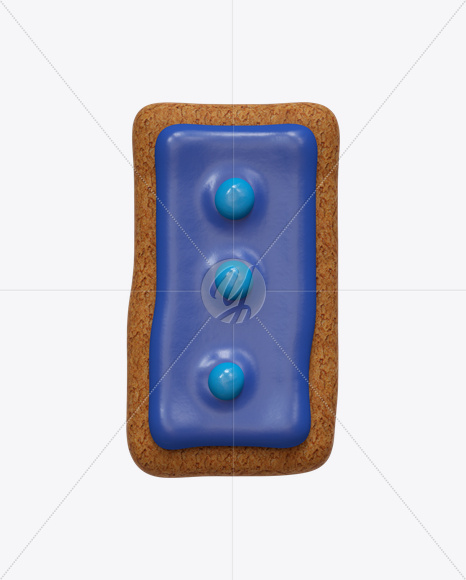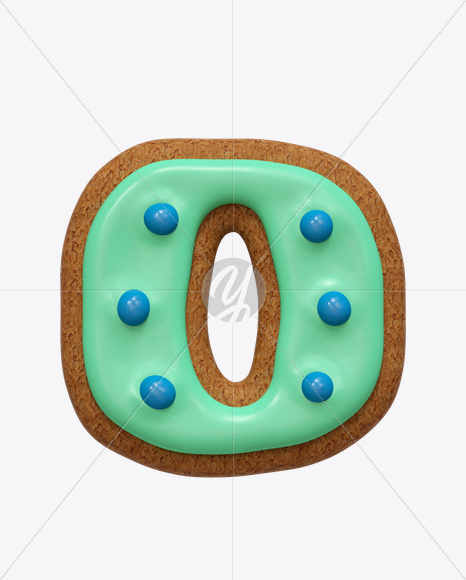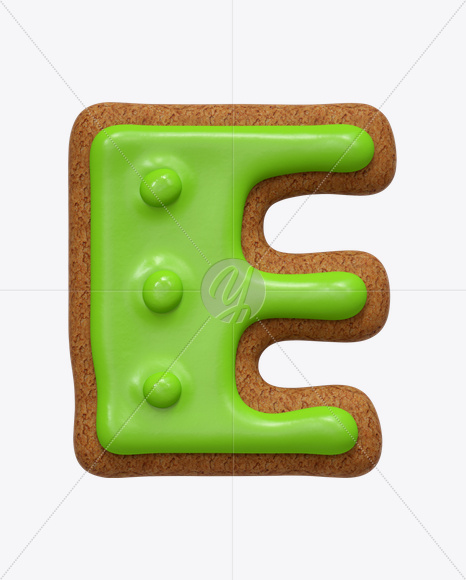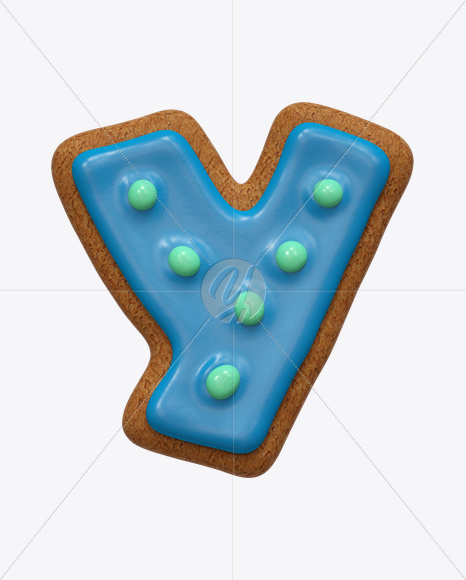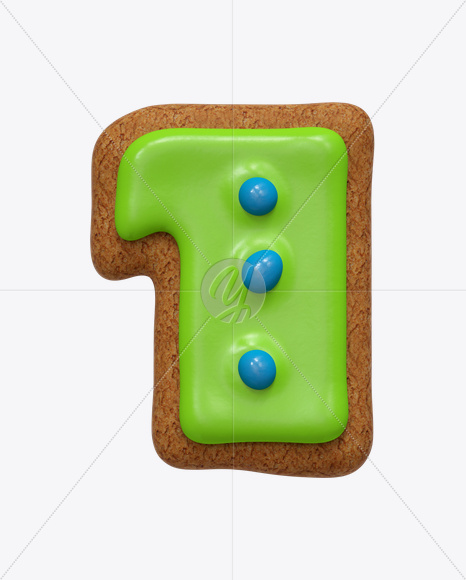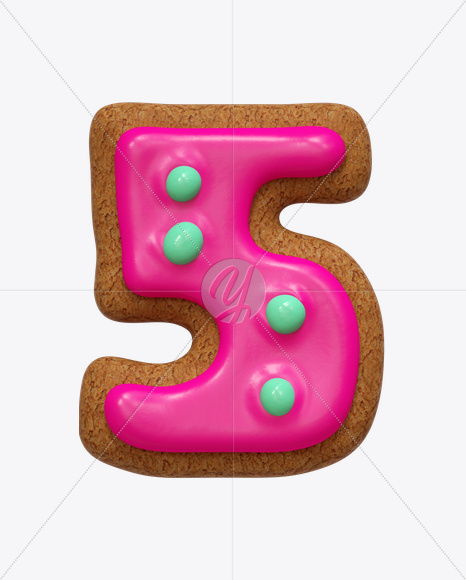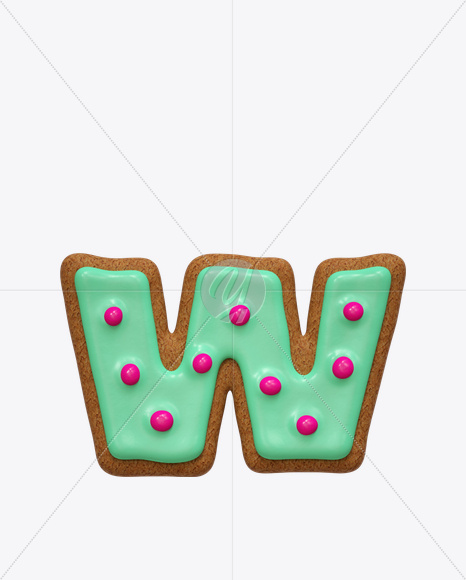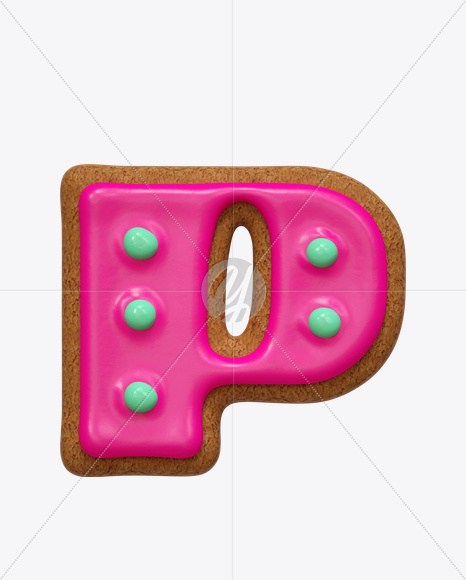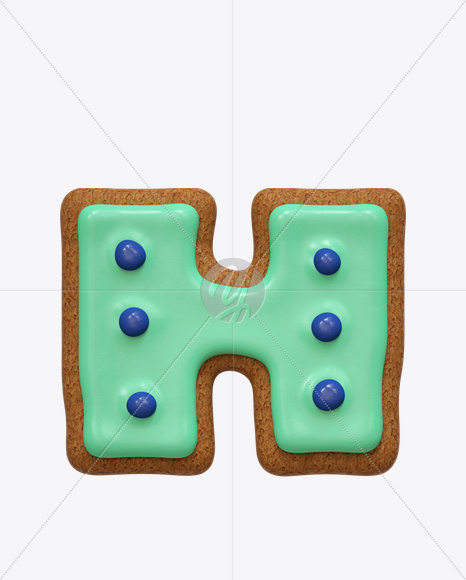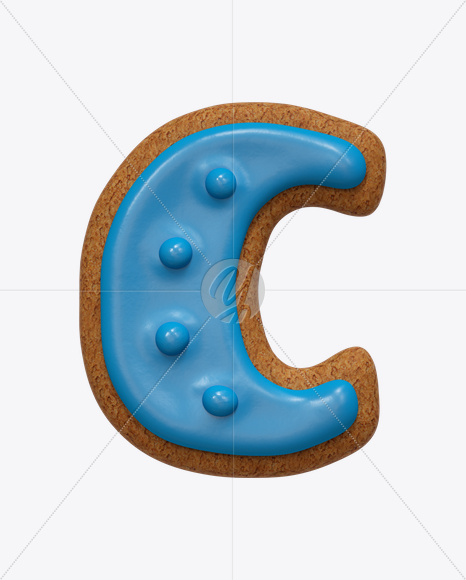
A cookie font is a sight for sore eyes. And, of course, it is also a pill against a bad mood. Do you feel hungry for fresh ideas? Take a look at these delicious letters. I Like Cookies Font is a tasty typeface that will sharpen your design perception. We view the 3D font as a panacea against dull and predictable projects. Try the handmade font once and you will always know what you exactly want to achieve.